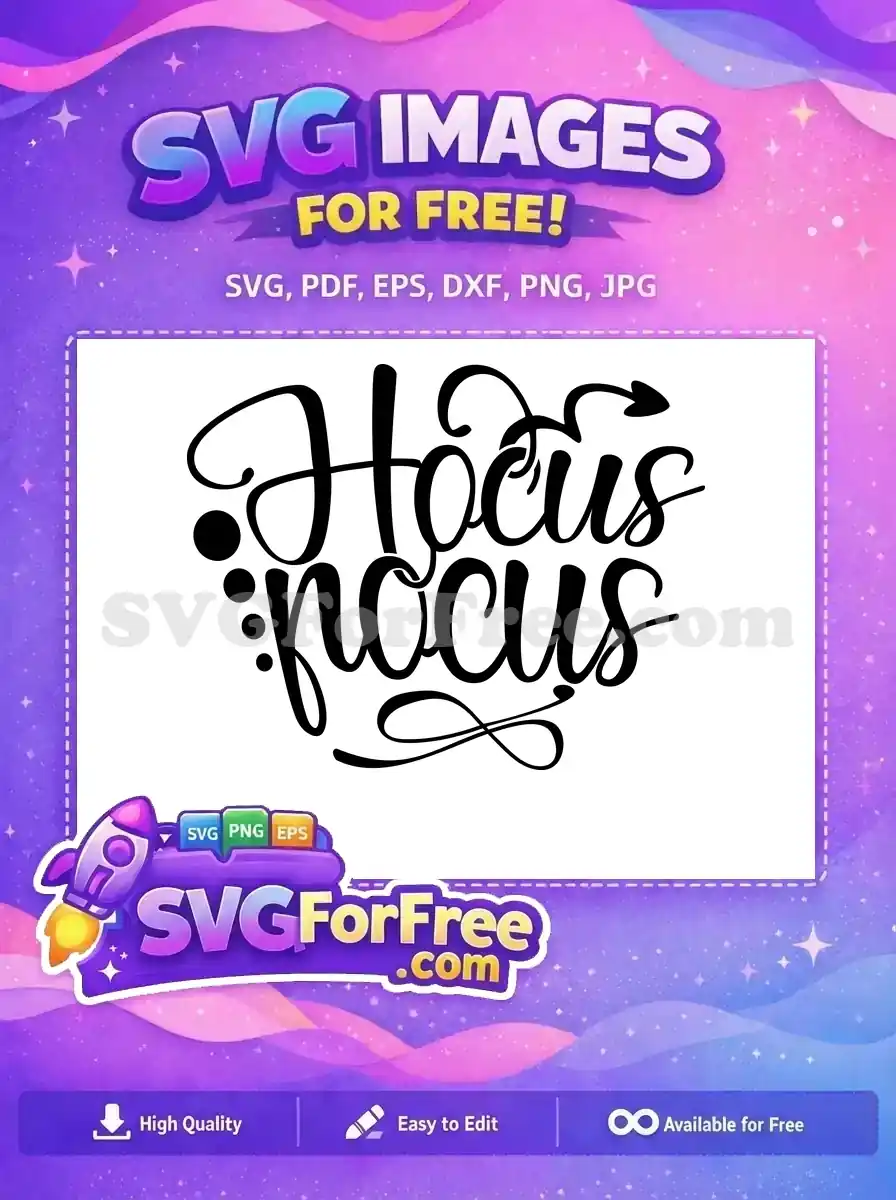
Free Cursive Font Free Halloween Elements Hocus Pocus Free SVG – Instant Download
Curly script Hocus Pocus free text vector.
Free Cursive Font Free Halloween Elements Hocus Pocus Free SVG